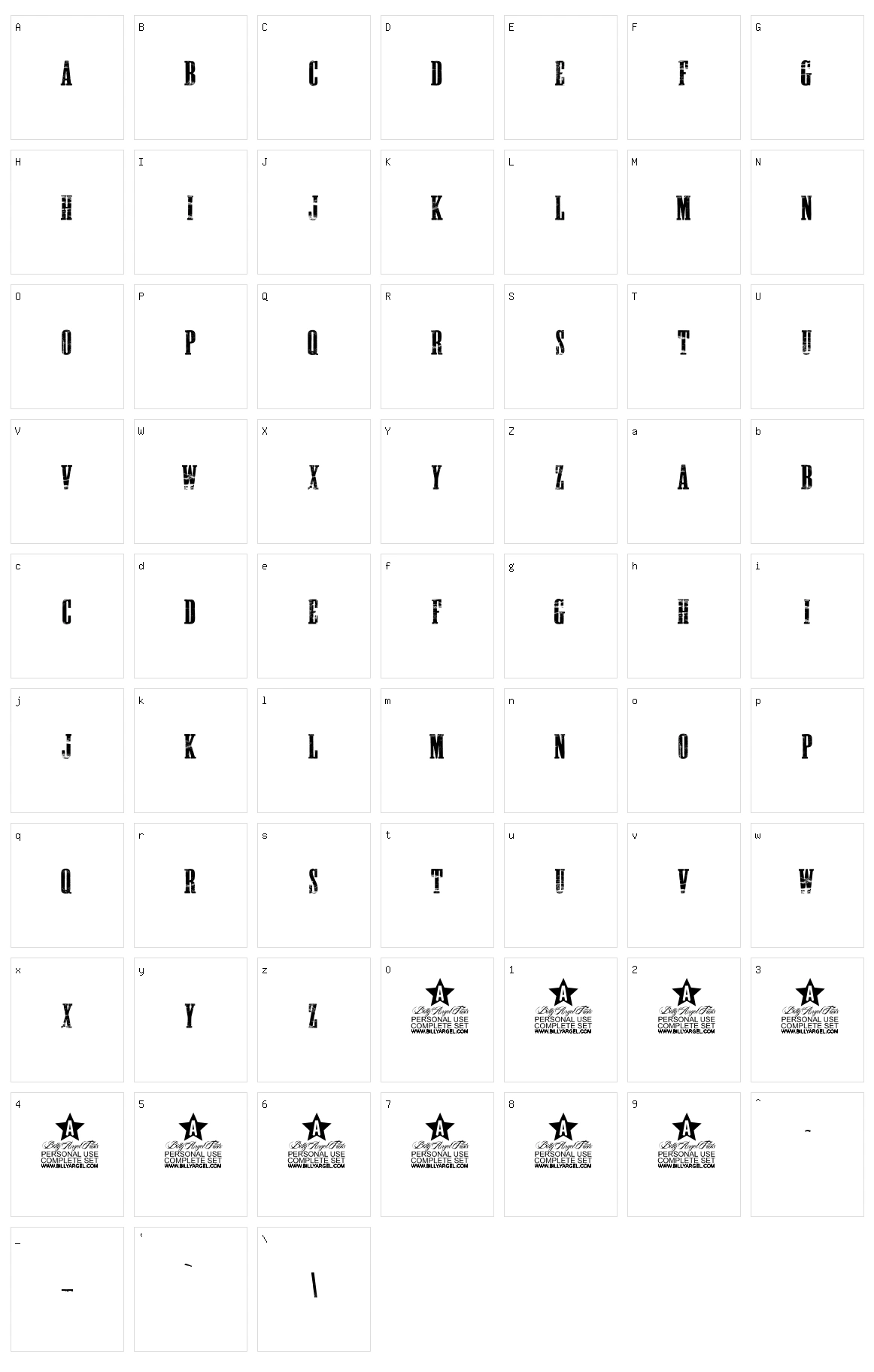
The free font Gonna Getha is carefully designed by Billy Argel Fonts ®, showcasing a thoughtful balance of creativity and usability and falls under the Eroded font style. When you download the ZIP file, it contains only 455.61 KB of font files, making it lightweight and quick to download. Please review the license details below to understand permitted usage and distribution rights. If license information is not available, we recommend using this font for personal projects only or contacting the author directly for commercial usage permissions.